Choosing from cute bubble fonts for 2026 starts with the job your typography must do. Consider the words, their final size, and the mood of the project. The options below are organized to help you compare useful directions before testing candidates in your own layout.
How to evaluate the options
Set the real headline, name, or label in each candidate. Check legibility at the final size, compare the capitals and repeated letters, and leave enough room for decorative details. Use a quieter companion font for long descriptions and other supporting text.
Font picks
Baby Gemoy Font for playful designs
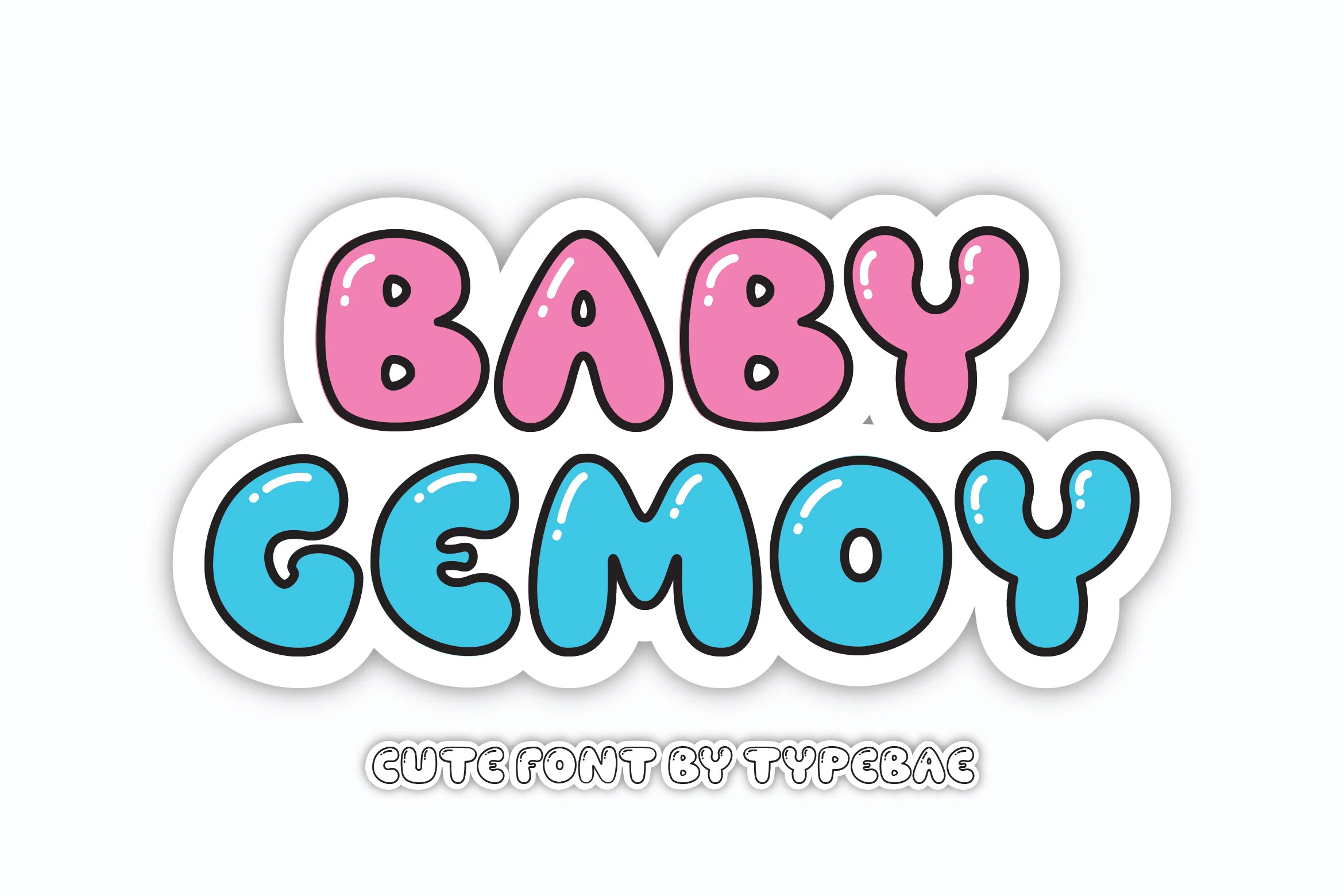
Baby Gemoy Font is worth testing for playful designs, children’s designs, and stickers. Look for an even, monoline stroke and rounded letter shapes when comparing it with other options. Test connected letters in the exact words you plan to use.
Bubbly Humble Font for children’s designs
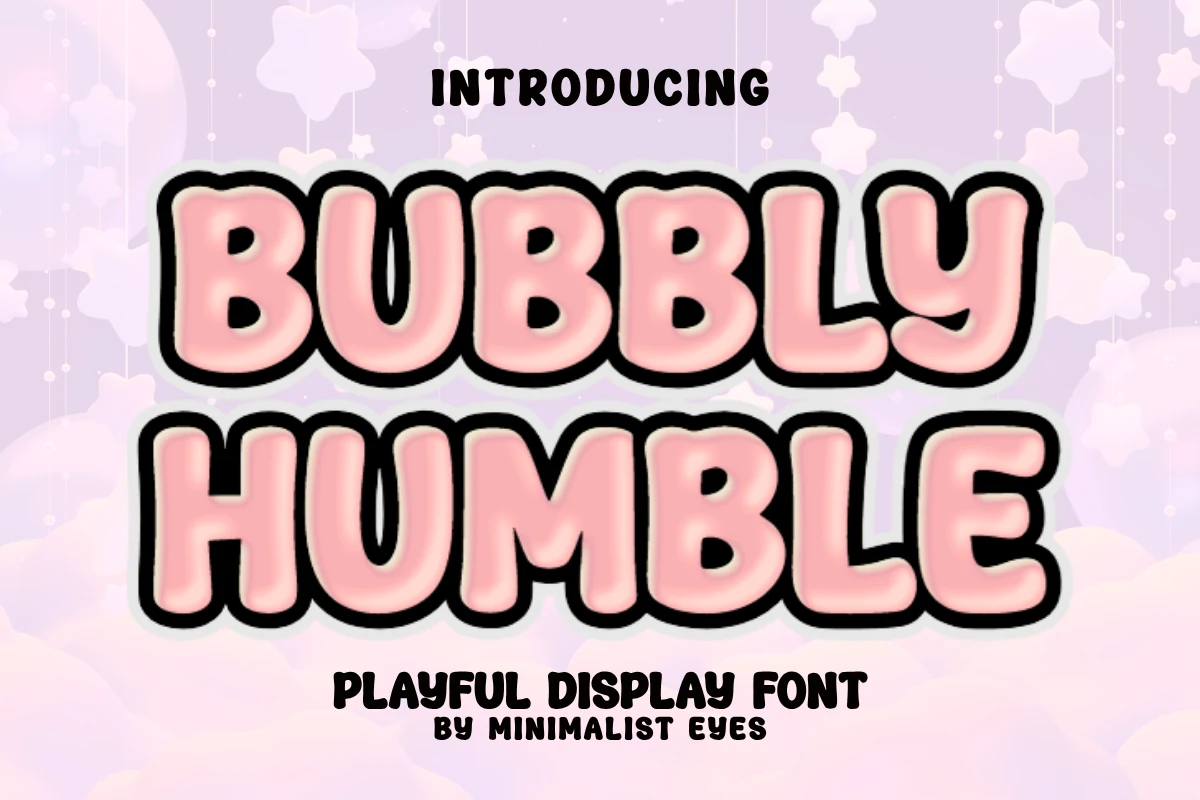
For children’s designs, cute designs, and invitations, consider Bubbly Humble Font. Its design draws on rounded letter shapes and display-focused letterforms. Try it at both headline and label size to judge its clarity.
Mori Soda Font for packaging
Mori Soda Font can anchor packaging, stickers, and social media graphics. The main visual cues are an even, monoline stroke and rounded letter shapes. Test connected letters in the exact words you plan to use.
Bubble Cutes Font for cute designs
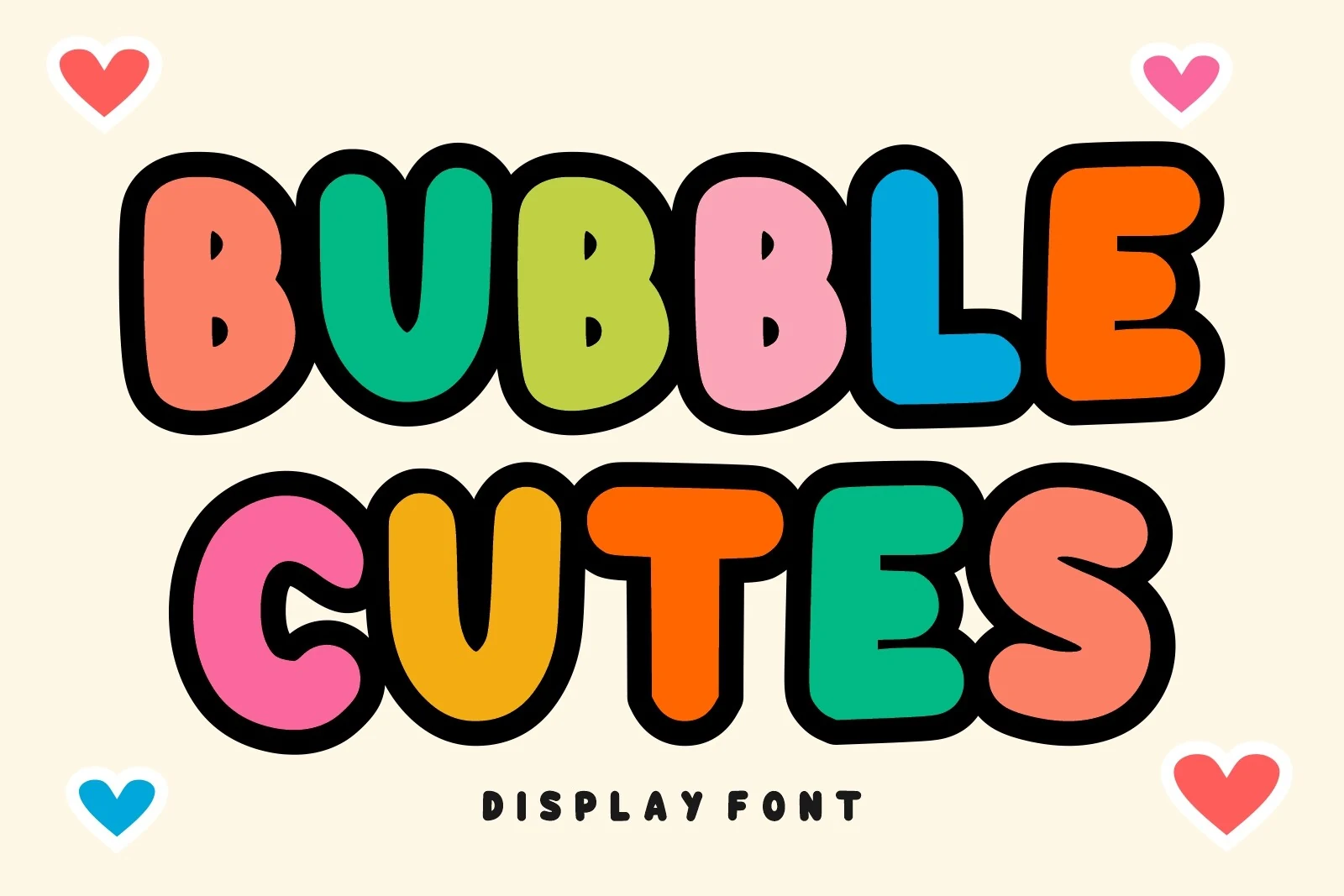
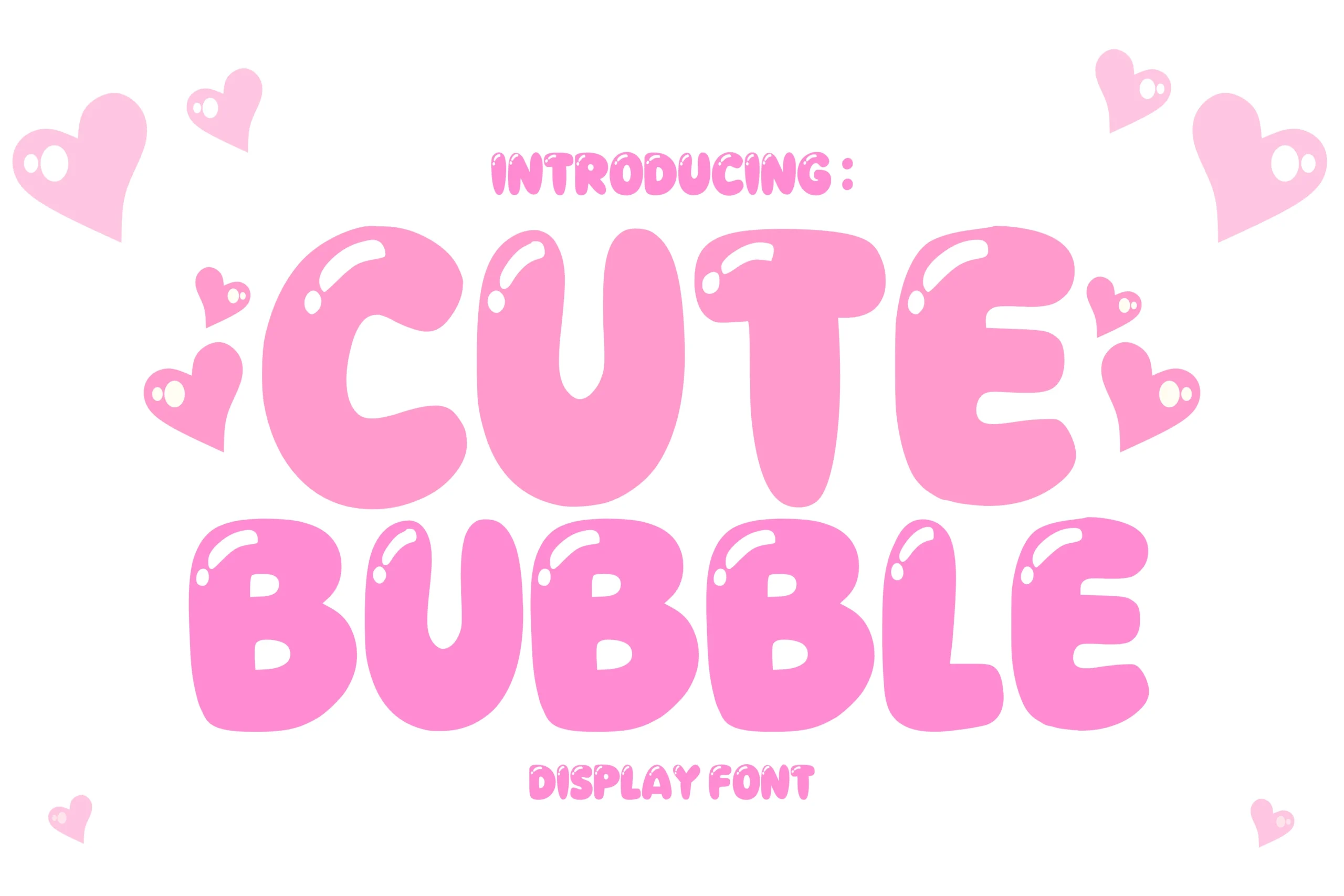
Bubble Cutes Font is worth testing for cute designs, playful designs, and children’s designs. Look for rounded letter shapes and display-focused letterforms when comparing it with other options. Try it at both headline and label size to judge its clarity.
Mother Earth Font for playful designs
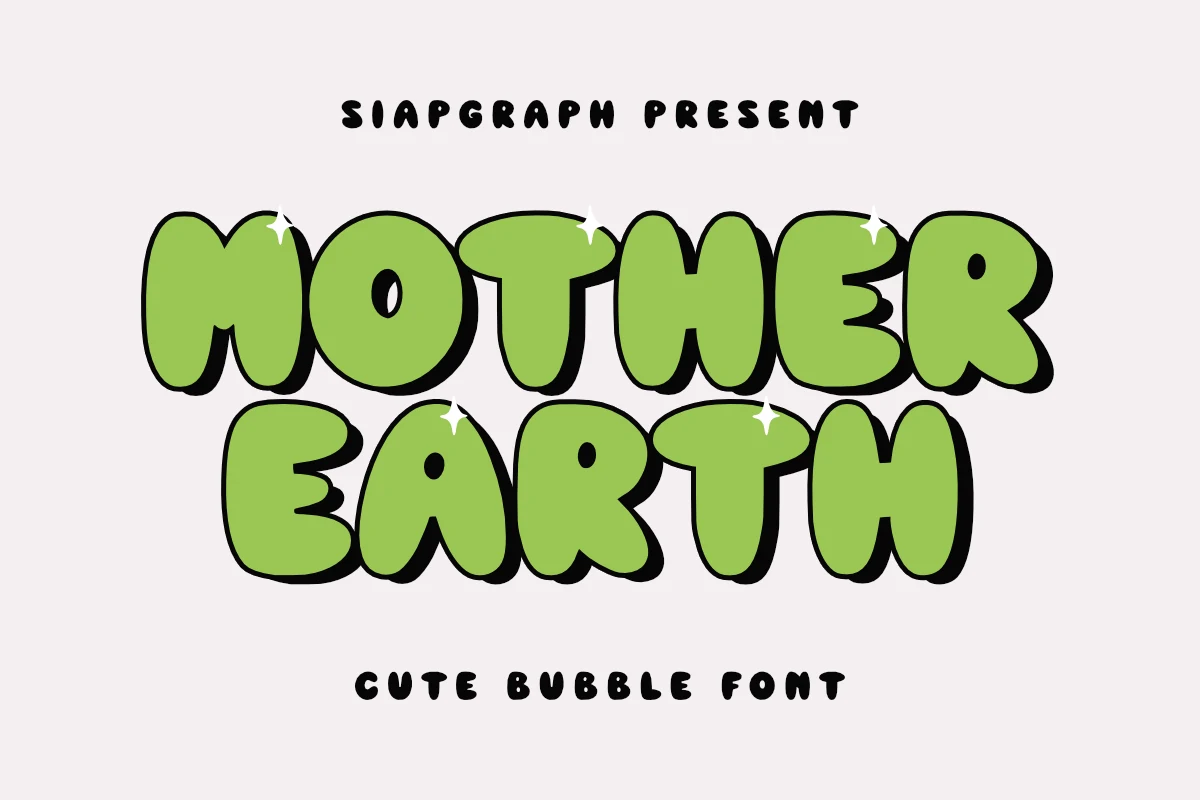
For playful designs, children’s designs, and stickers, consider Mother Earth Font. Its design draws on rounded letter shapes and display-focused letterforms. Try it at both headline and label size to judge its clarity.
Self Dream Font for posters
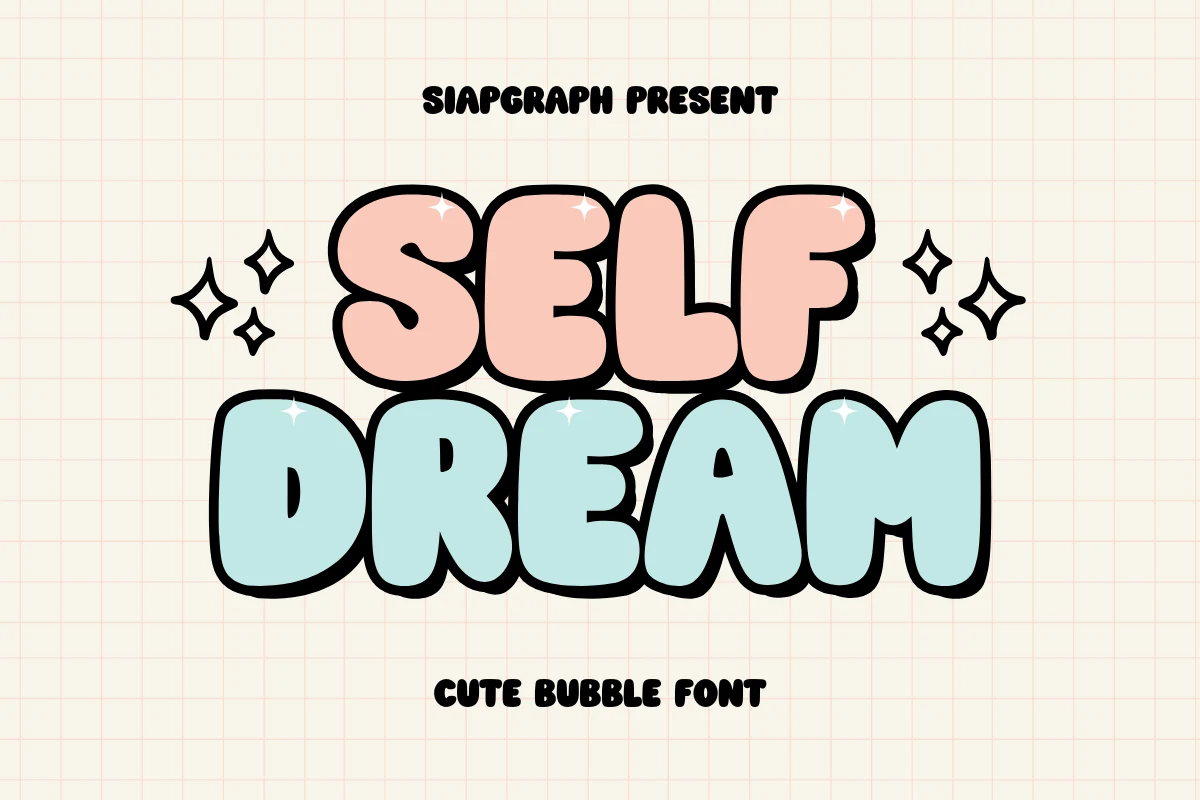
Self Dream Font can anchor posters, social media graphics, and cute designs. The main visual cues are rounded letter shapes and narrow proportions. Try it at both headline and label size to judge its clarity.
Booz Font for playful designs
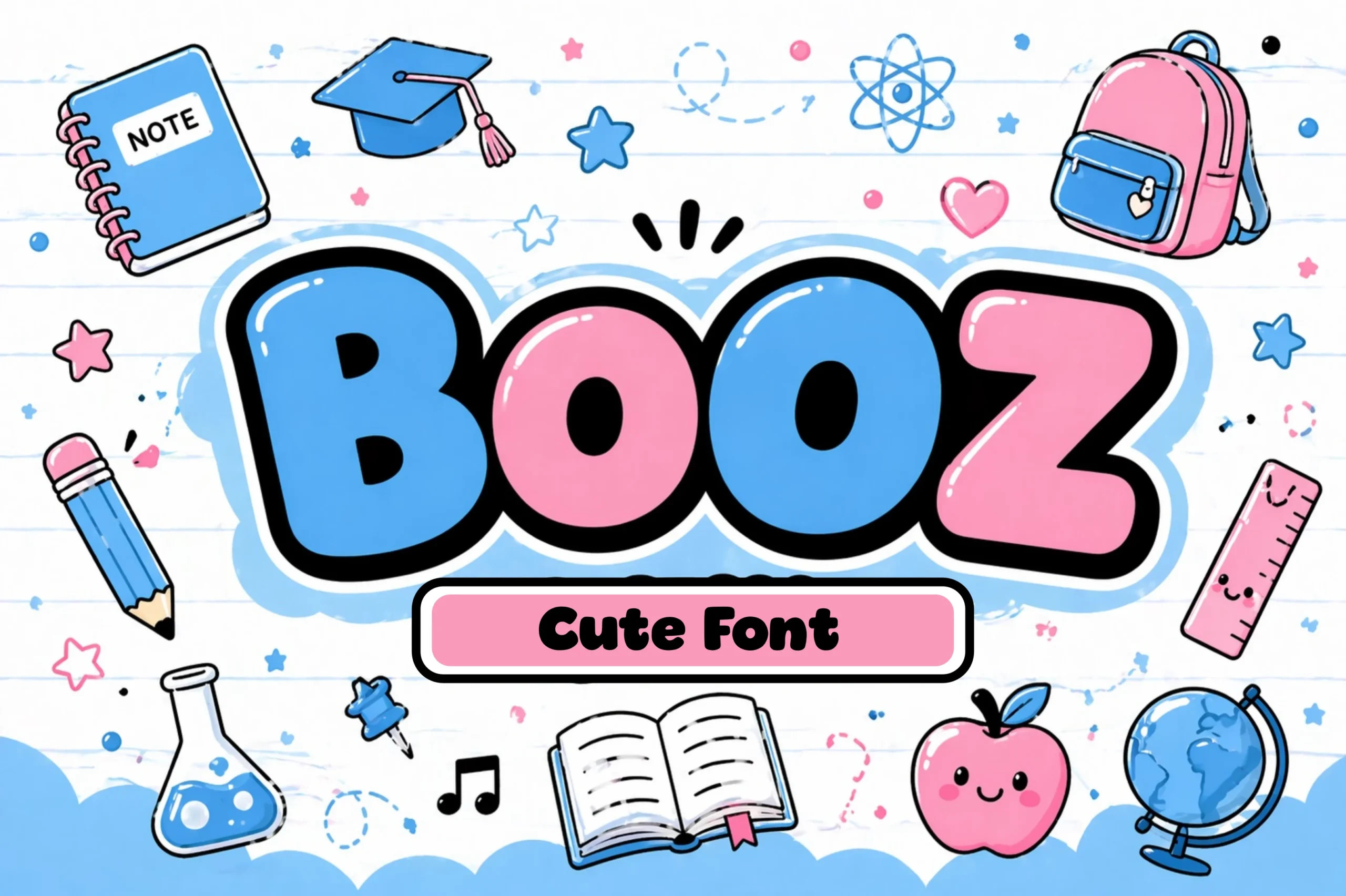
Booz Font is worth testing for playful designs, cute designs, and children’s designs. Look for rounded letter shapes and display-focused letterforms when comparing it with other options. Try it at both headline and label size to judge its clarity.
Bubble Craft Font for cute designs
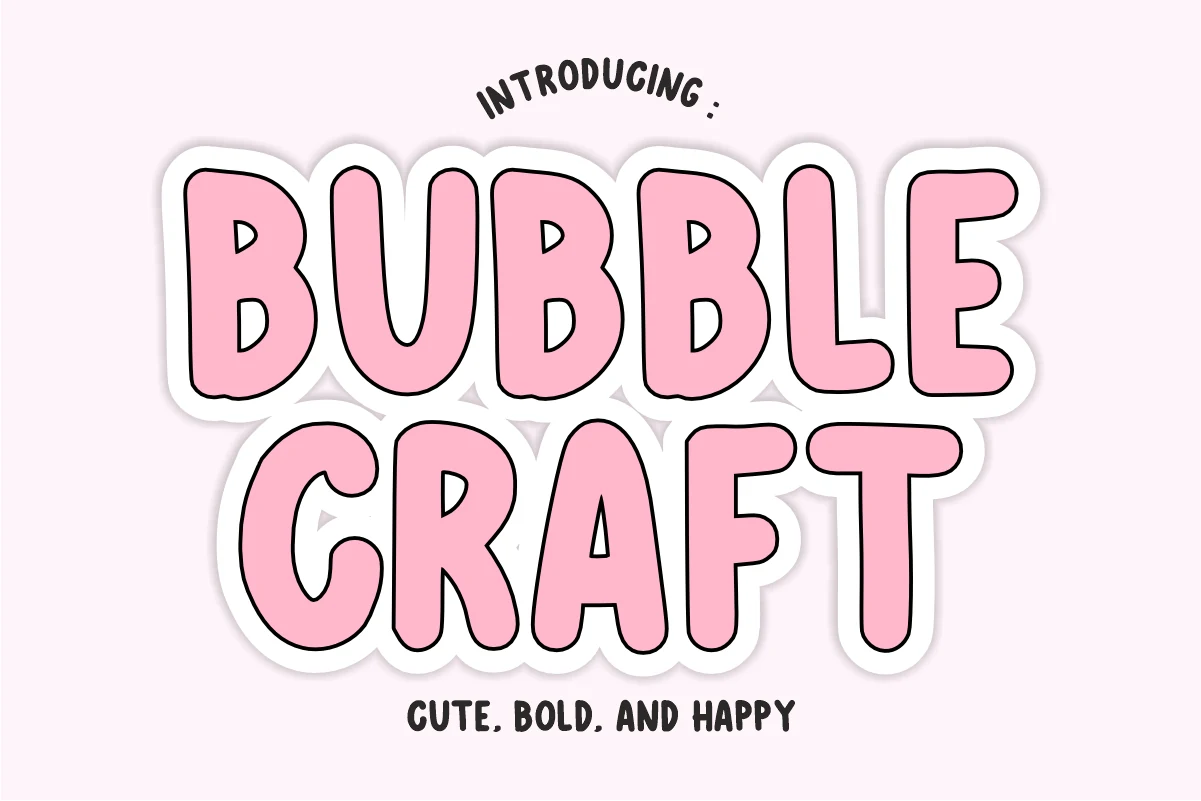
For cute designs, playful designs, and posters, consider Bubble Craft Font. Its design draws on an even, monoline stroke and rounded letter shapes. Test connected letters in the exact words you plan to use.
Baby Barbie Font for playful designs
Baby Barbie Font can anchor playful designs, children’s designs, and stickers. The main visual cues are an even, monoline stroke and rounded letter shapes. Test connected letters in the exact words you plan to use.
Final checks before using a font